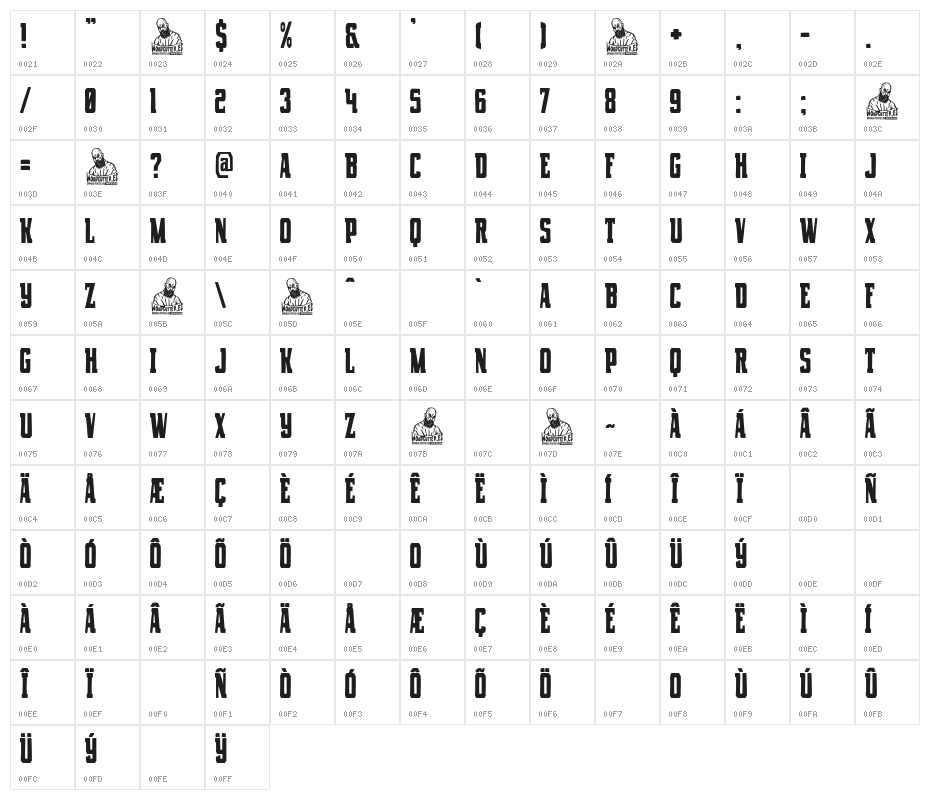
Alabama State Font
Alabama State Description
A bold, slab serif typeface with strong, blocky letterforms and angular edges, evoking a vintage, collegiate or athletic feel. The characters are tall with consistent stroke weight and minimal contrast, and the overall appearance is sturdy and impactful.
Overall StyleVintage, Collegiate, Decorative
Proposed ProjectsSports team branding, posters, event flyers, collegiate apparel, signage.